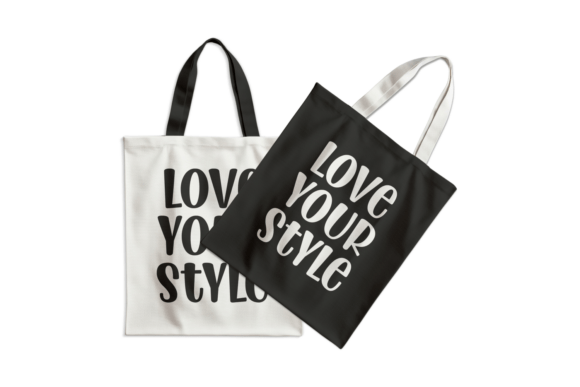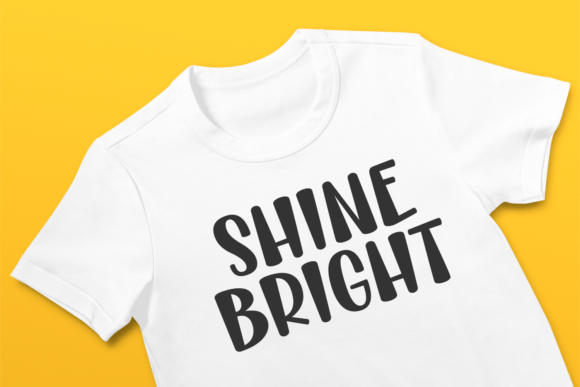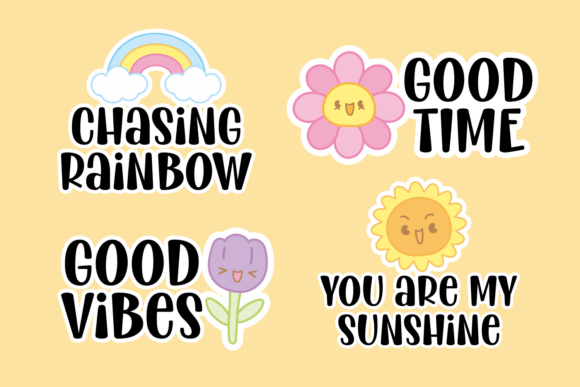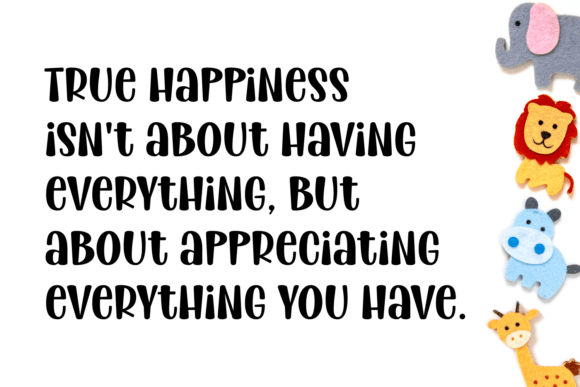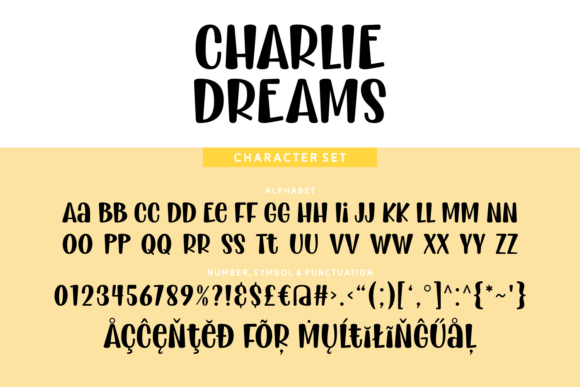
Introducing Charlie Dreams Font: The Ultimate Choice for Modern Elegance
In the world of typography, fonts play a crucial role in conveying the tone and personality of a brand or design. With the numerous options available, finding the perfect font that combines simplicity with elegance can be a daunting task. However, we are excited to introduce “Charlie Dreams,” a mesmerizing font that is sure to revolutionize your design game. This impeccably handwritten, chunky style font is an admirable choice for a rich, modern, casual look that exudes a playful yet stylish vibe.
A Beautiful Font Inspired by Creativity
Charlie Dreams stands out as a beautiful font, inspired by the love and beauty of creativity itself, making it trendy and appealing. The font’s unique design is a perfect blend of simplicity and elegance, making it suitable for a wide range of projects. Whether you’re a designer, crafter, or DIY enthusiast, Charlie Dreams is sure to capture your heart with its charming and stylish appearance.
Designed with the intent of versatility, Charlie Dreams is ideal for a plethora of projects, from making eye-catching Cricut crafts to adding a unique touch to your SVG designs. The font’s flexibility makes it perfect for various applications, including posters, banners, logos, and more. With Charlie Dreams, you can create an impactful brand image that effortlessly captures attention.
Perfect for Marketing Materials and Beyond
Creating an impactful brand image is made easy with Charlie Dreams, as it effortlessly captures attention when used in posters, banners, or logos. However, this font isn’t just limited to marketing materials; it also caters to the softer, more intimate side of communication. The font carries a certain charm and warmth that makes it perfect for crafting winsome Valentine’s Day messages or wedding invitations that make people’s hearts flutter.
Bridging the Past and the Present
Charlie Dreams has a unique ability to bridge the past and the present, making it a timeless addition to your design collection. The font’s classic yet modern design ensures that it will remain relevant for years to come, making it a valuable asset for any designer or crafter.
Why Choose Charlie Dreams?
So, why choose Charlie Dreams over other fonts? Here are a few compelling reasons:
- Unique Design: Charlie Dreams boasts a distinctive handwritten, chunky style that sets it apart from other fonts.
- Versatility: The font is suitable for a wide range of projects, from Cricut crafts to SVG designs, and more.
- Elegance: Charlie Dreams combines simplicity with elegance, making it perfect for modern designs.
- Emotional Connection: The font’s charm and warmth make it ideal for creating emotional connections with your audience.
Tips for Using Charlie Dreams
To get the most out of Charlie Dreams, here are a few tips:
- Experiment with Sizes: Play around with different font sizes to create visual interest and hierarchy in your designs.
- Pair with Other Fonts: Combine Charlie Dreams with other fonts to create a unique and harmonious design.
- Use in Digital and Print: The font is suitable for both digital and print applications, making it a versatile addition to your design toolkit.
In conclusion, Charlie Dreams is a game-changing font that is sure to elevate your designs to the next level. With its unique blend of simplicity and elegance, versatility, and emotional connection, this font is perfect for designers, crafters, and DIY enthusiasts. Whether you’re looking to create marketing materials, Cricut crafts, or SVG designs, Charlie Dreams is the ultimate choice for modern elegance.